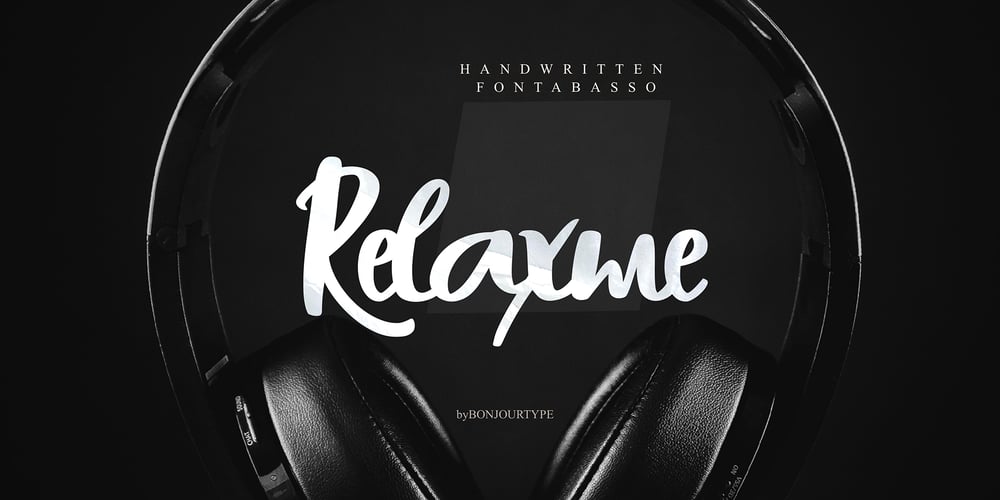
Relaxme Font Family was designed by Rachma and published by BonjourType. Relaxme contains 1 styles and family package options. Relaxme can be used for personal or commercial projects, in logos, on items for purchase with unlimited sales.Font that is perfect for quotes, cool logos and social media images and quotes. Featured fonts: Uppercase, Lowercase, Numbers, Symbols, Accents, Alternative, Ligatures and also supports multilingualEnjoy the font, feel free to leave a comment or feedback, send me a PM or email bonjourtype@gmail.com.Thank you!